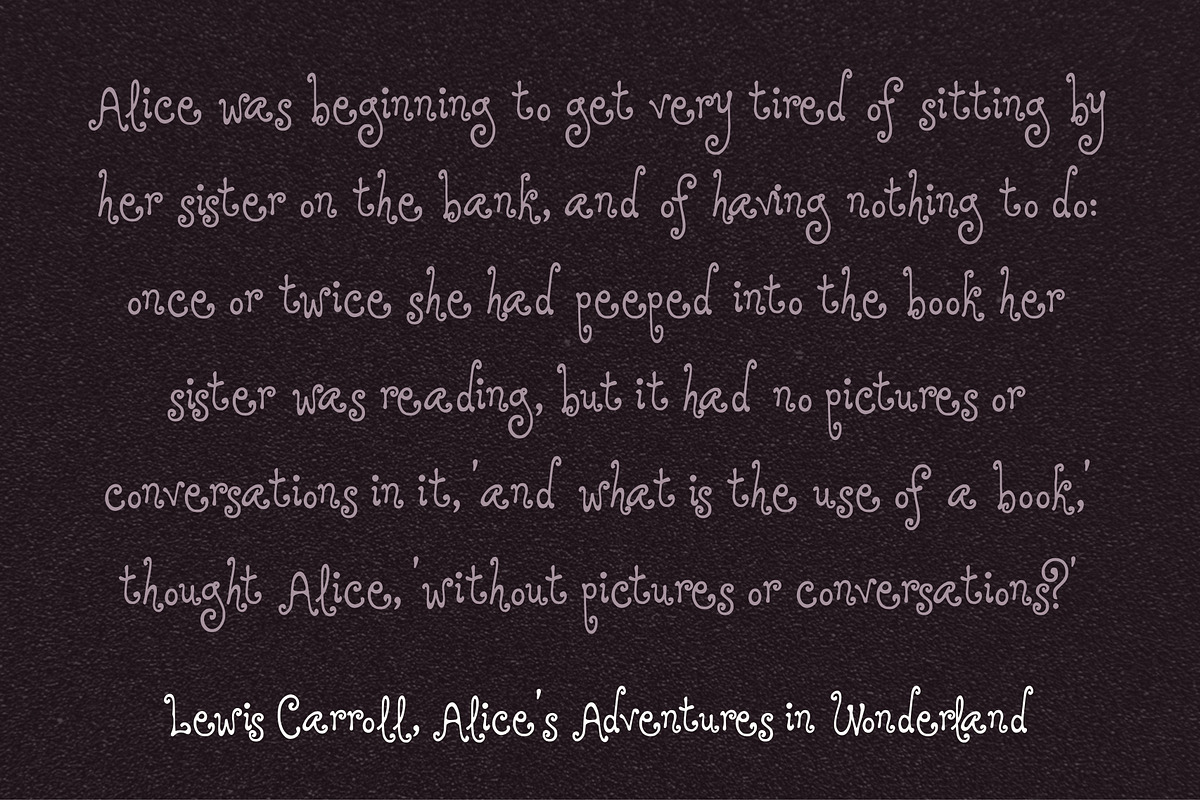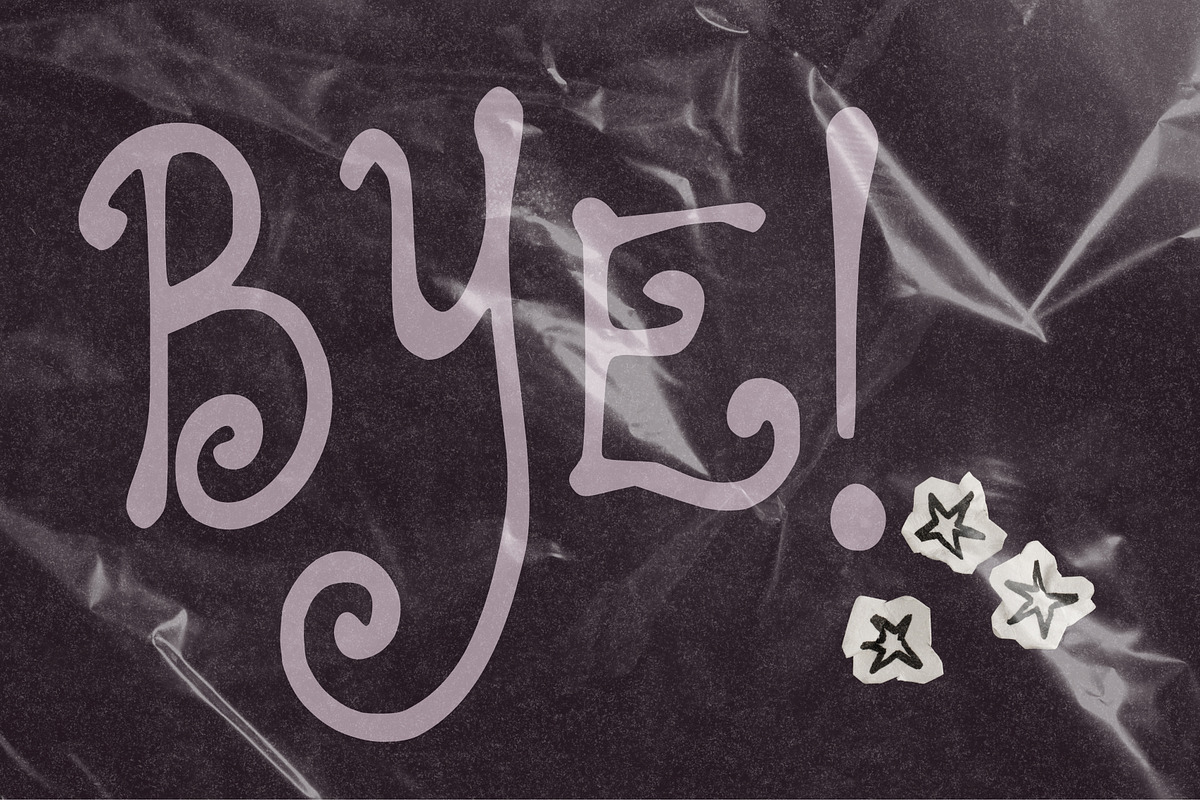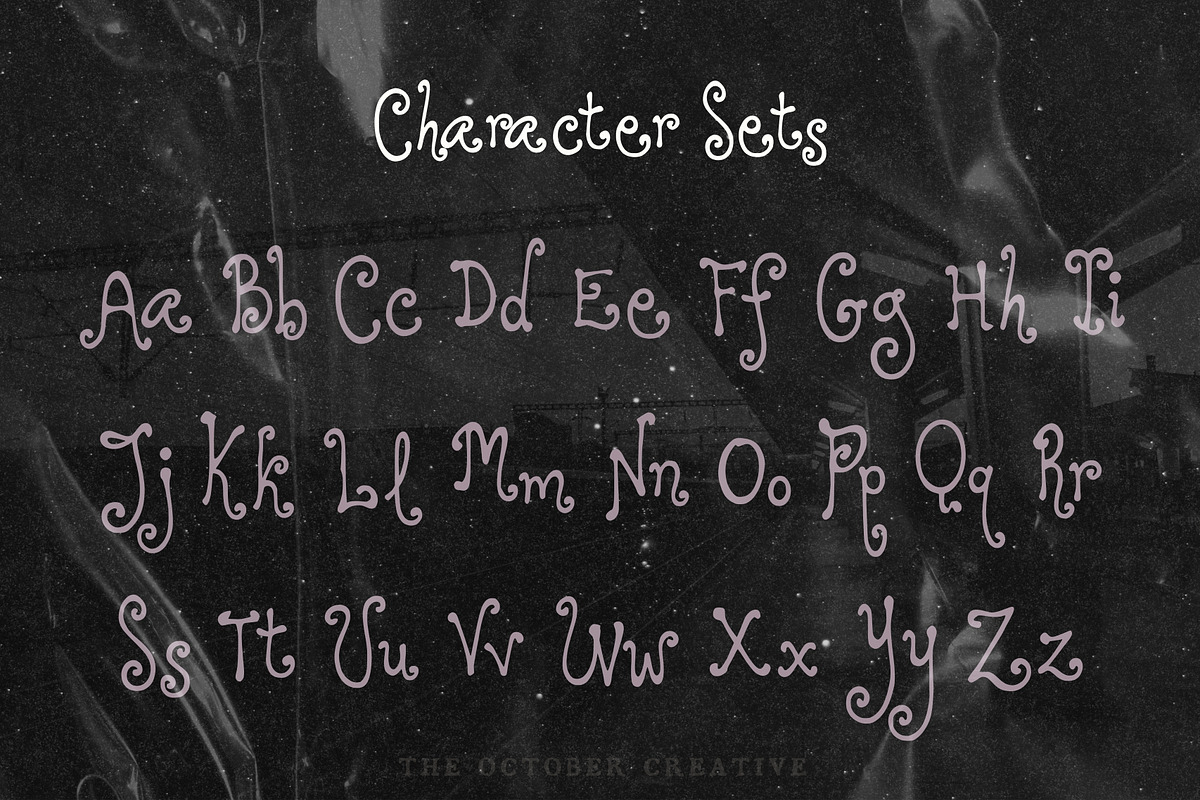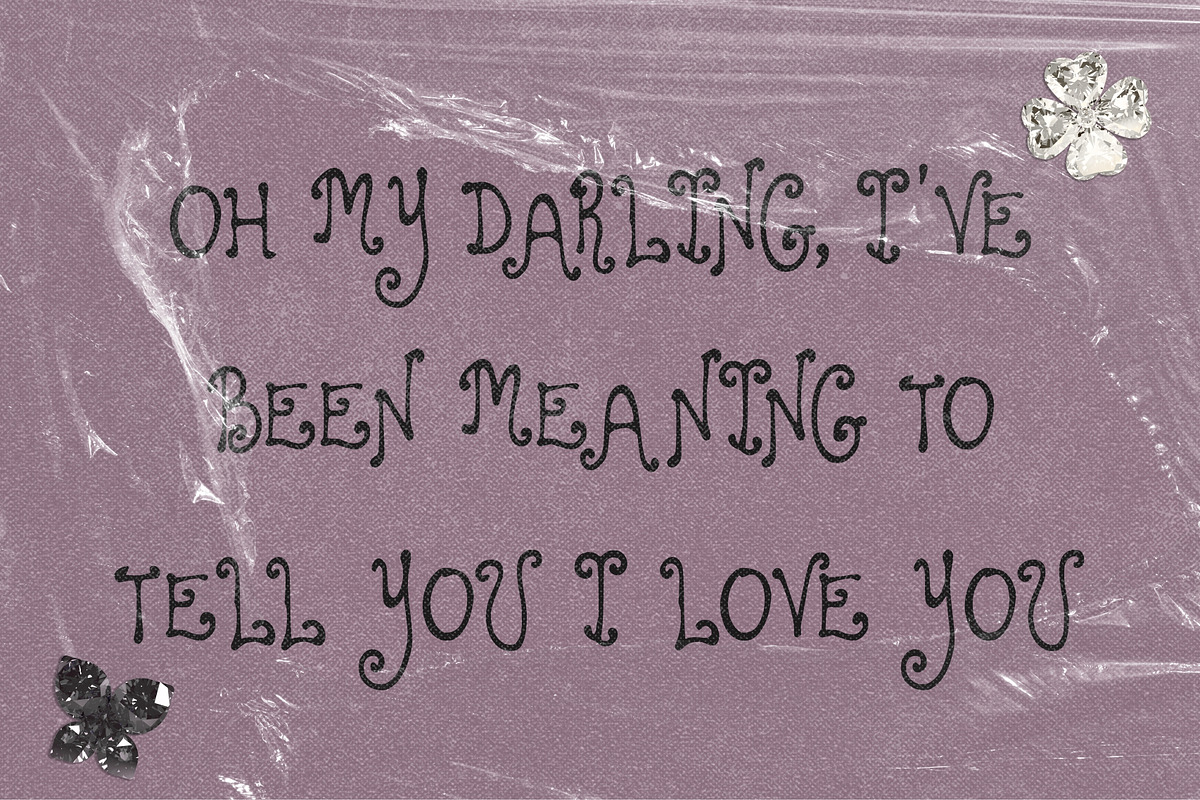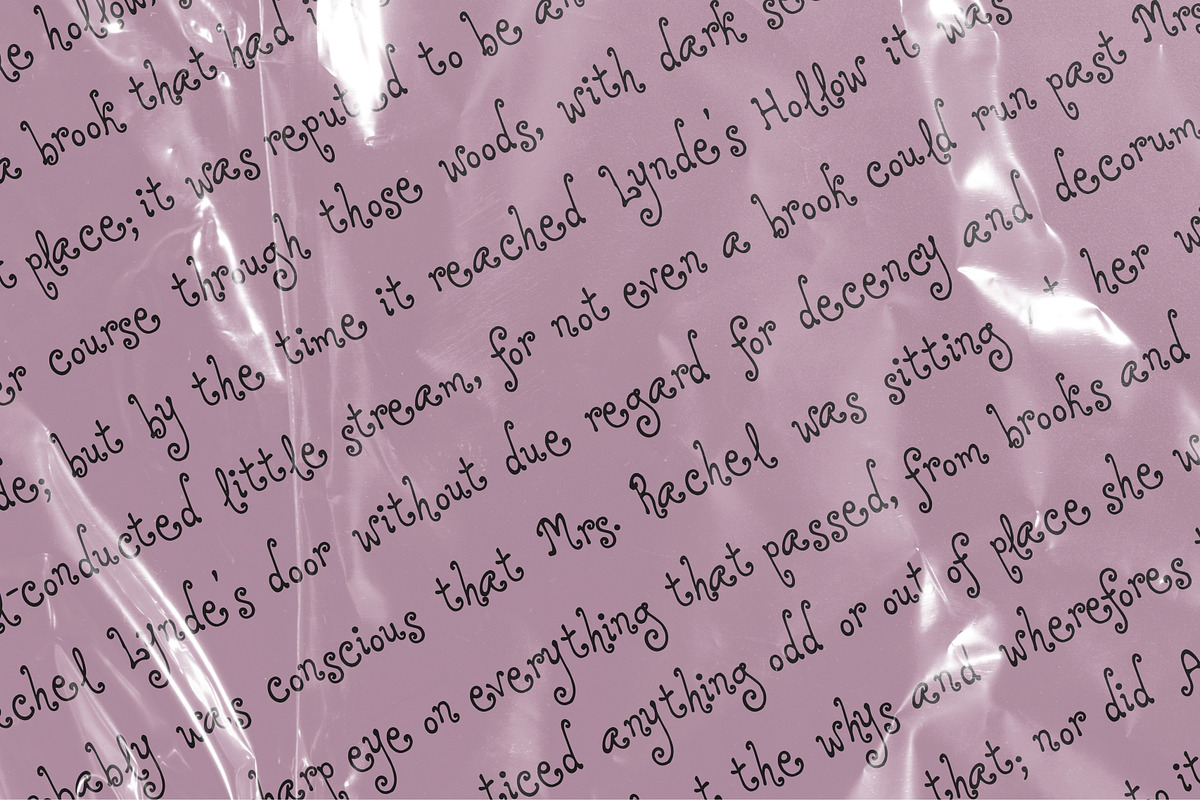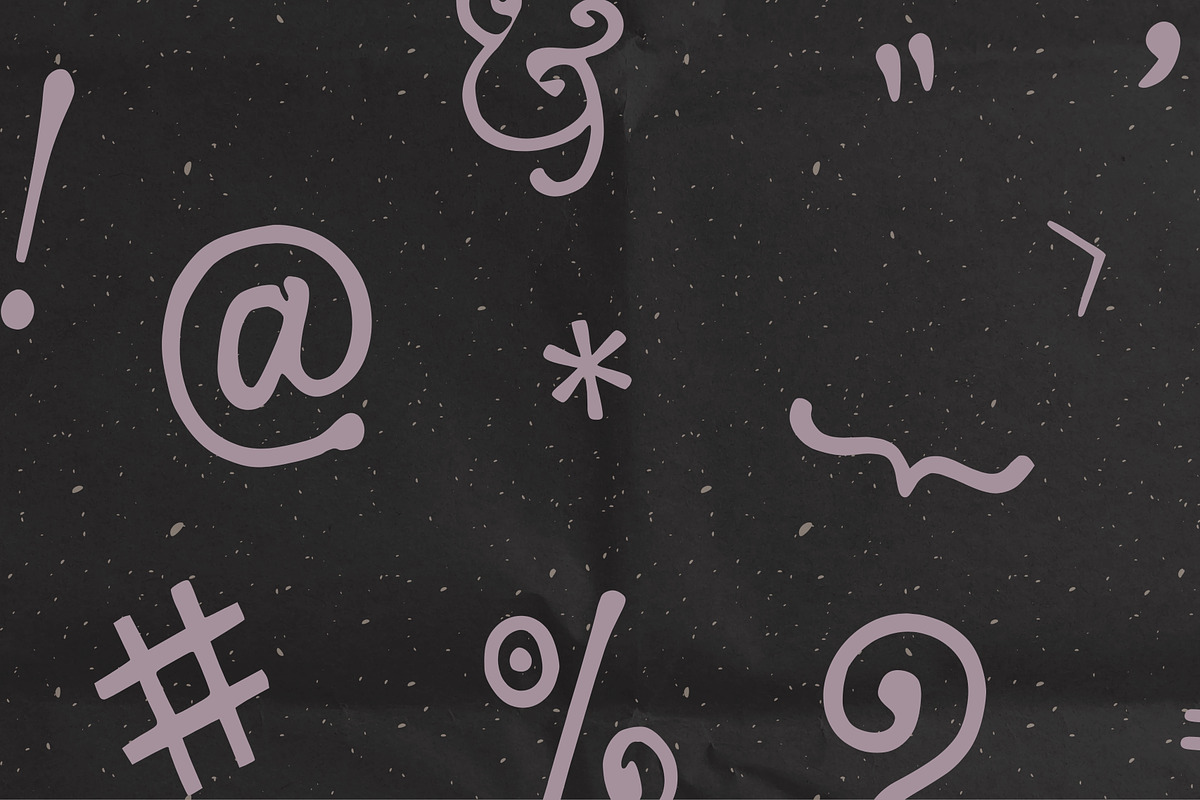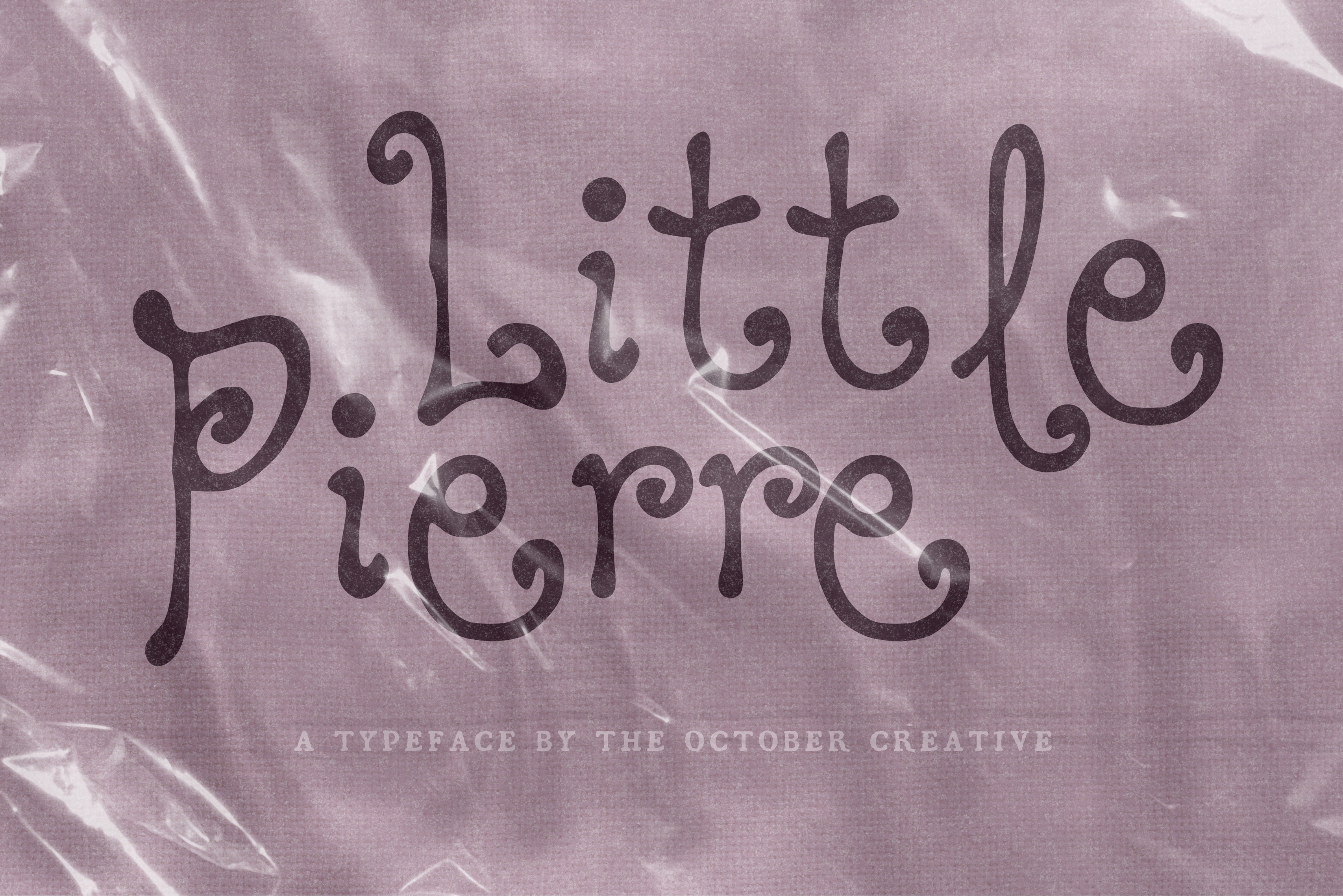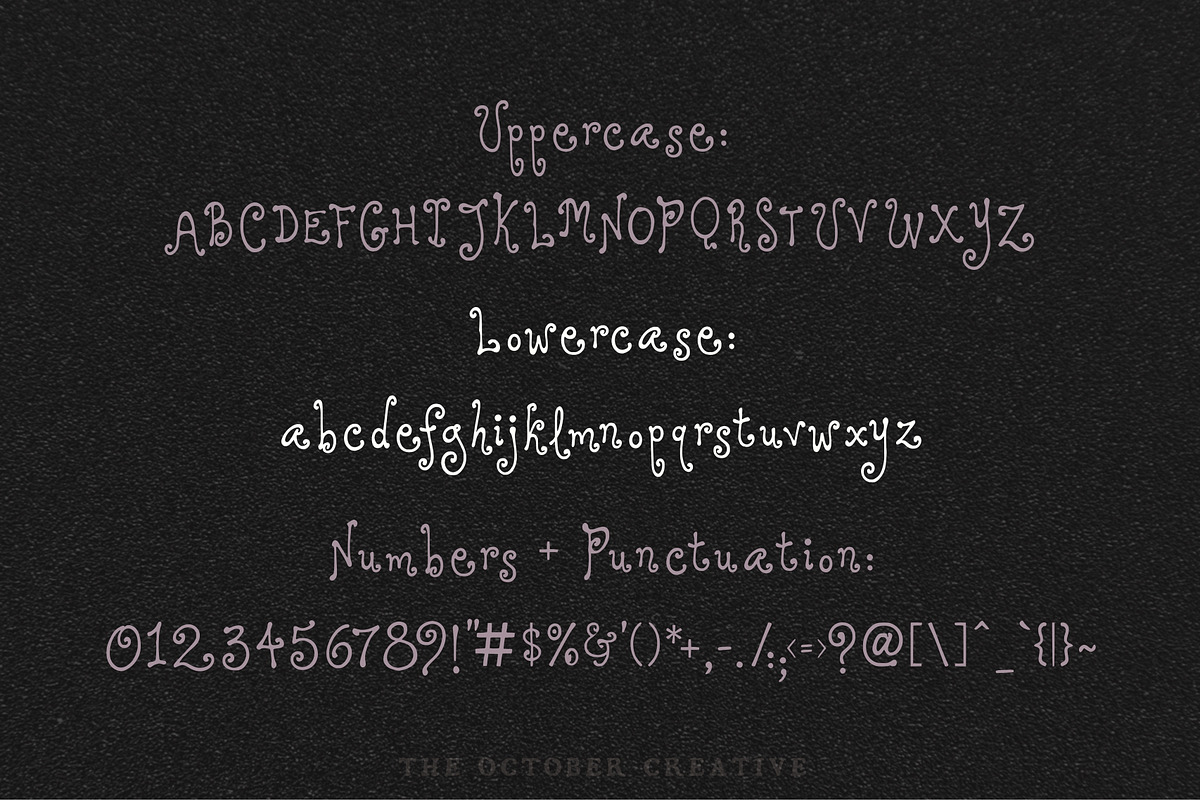
Little Pierre Curly Handwritten Font
Little Pierre is a rounded display font with medium-weight letters, small curls on the L and the r, and generous spacing. It fits cafe menus, bistro signage, patisserie labels, and French-themed stationery.
CHARACTER SET
Uppercase A to Z, lowercase a to z, numerals 0 to 9, and every standard keyboard punctuation mark and symbol: ! " # $ % & ' ( ) * + , - . / : ; < = > ? @ [ \ ] ^ _ ` { | } \~
Curly quotes and apostrophes (‘ ’ “ ”), en and em dashes, an ellipsis, and a bullet.
Accented letters: À Á Â Ã Ä Å Ç È É Ê Ë Ì Í Î Ï Ñ Ò Ó Ô Õ Ö Ù Ú Û Ü and their lowercase forms.
LANGUAGES SUPPORTED
English, plus the accented vowels, Ñ, and Ç used in names and everyday words in Spanish, French, Italian, Portuguese, German, and Dutch. Not included: ß, Æ, Ø, Œ, and the upside-down ¿ and ¡.
SPECIAL CHARACTERS